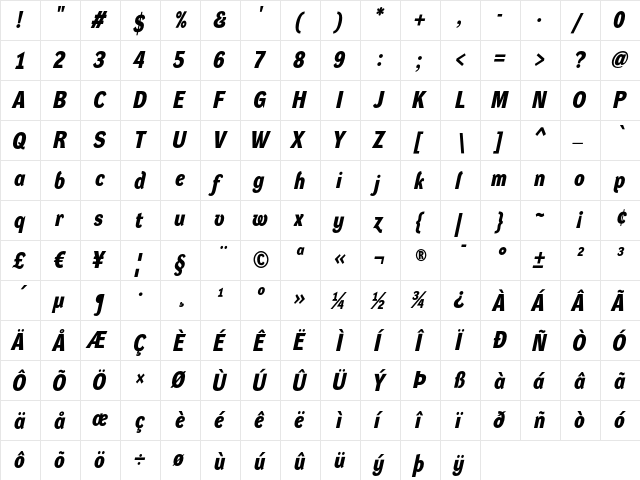
DynaGrotesk DM Bold Italic Font Preview
| Foundry | Frantisek Storm, stormtype.com |
Design Context for DynaGrotesk DM Typeface
DynaGrotesk DM has the quiet confidence of well-executed sans-serif typography: versatile, unobtrusive, and dependable at any size. Its italic angle brings a sense of urgency and motion to the letterforms. The heavy weight commands attention and anchors typographic hierarchies.
A strong choice for UI design, app interfaces, bold signage, and corporate brand systems.
Font Pairing: Use DynaGrotesk DM for headlines alongside a lighter-weight sans or serif for body copy to establish clear visual hierarchy.
Pro Tip: Pair DynaGrotesk DM with a display or serif font for headlines — its neutral character makes it an excellent supporting player in complex typographic systems.